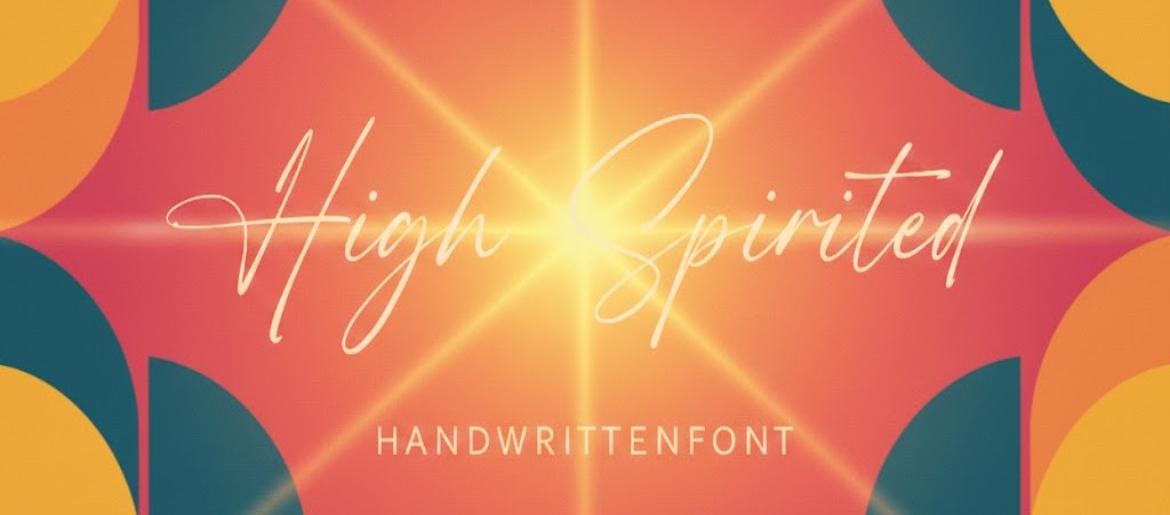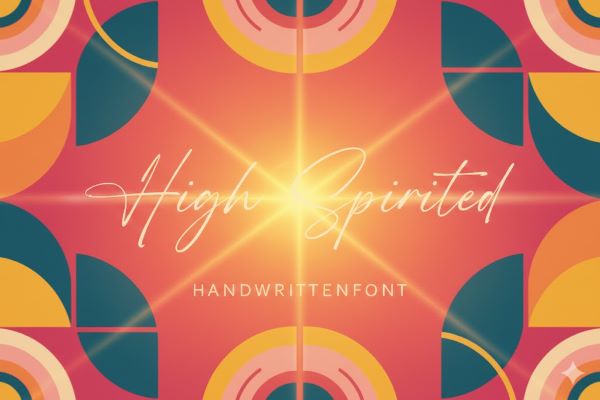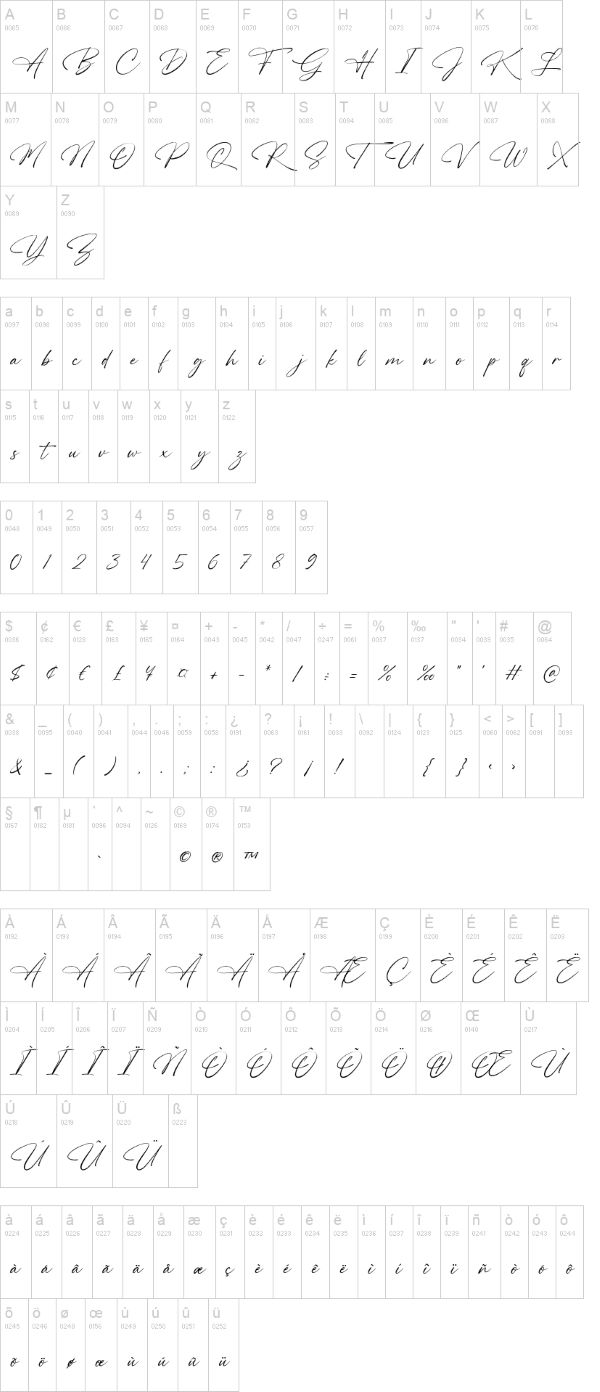
High Spirited Font
High Spirited Font is a lively handwritten typeface full of energy and personality. Its natural strokes and playful rhythm create an expressive, carefree feel. Ideal for quotes, social media graphics, journals, branding, and creative projects, this font adds warmth, movement, and a cheerful handmade touch to both digital and print designs.
➤ Font Name: High Spirited
➤ Designer: Octotype
➤ Style: Handwritten